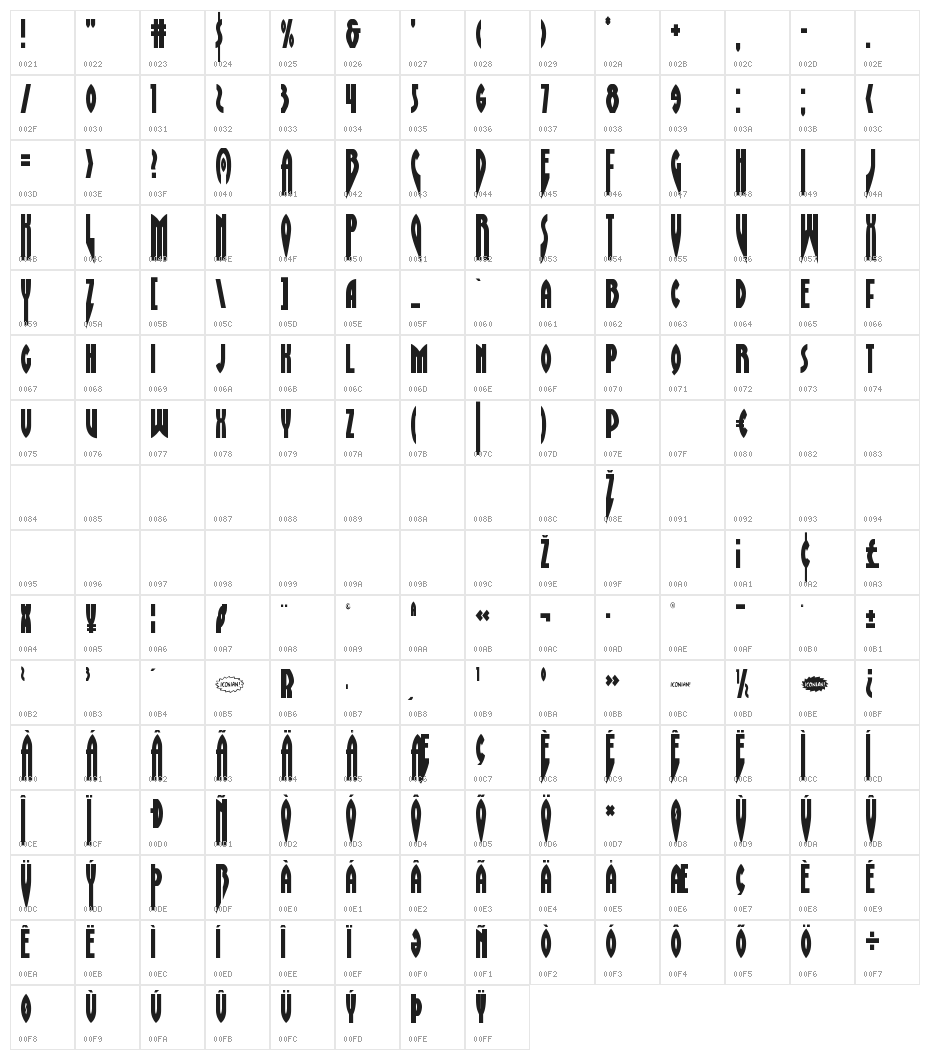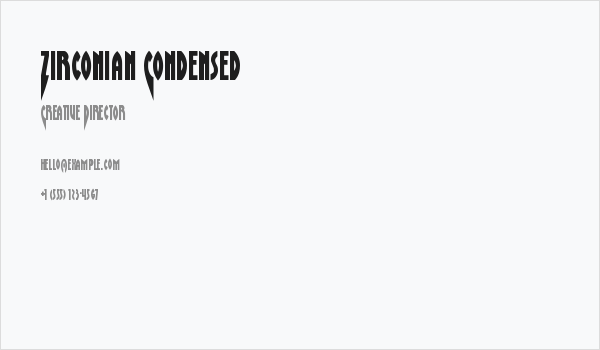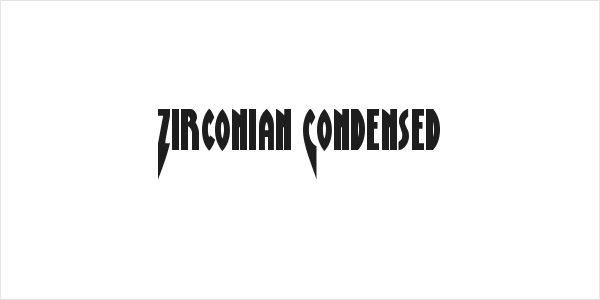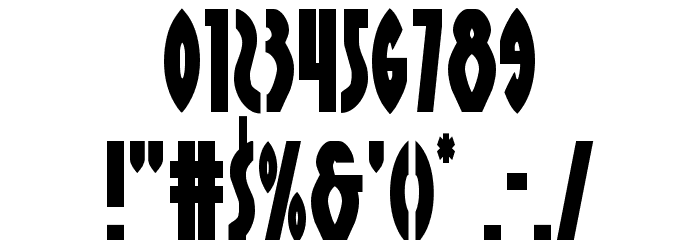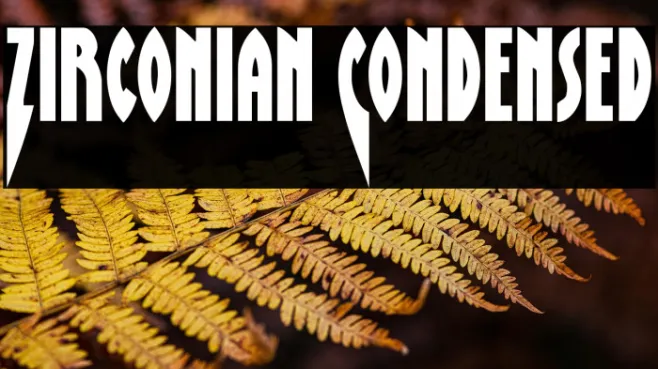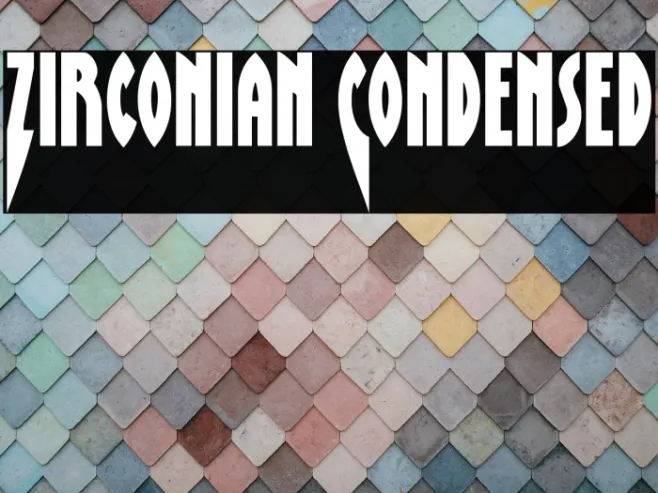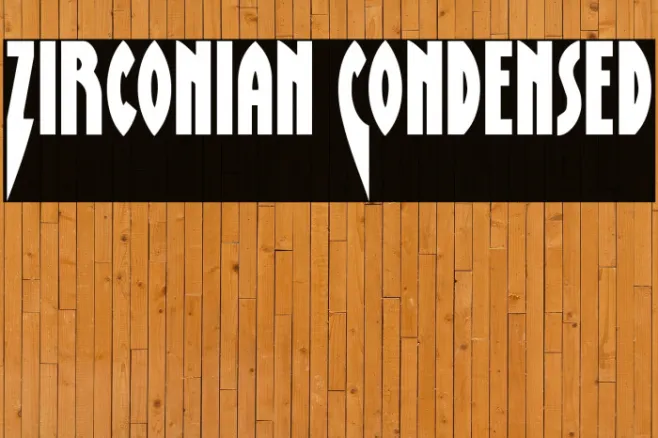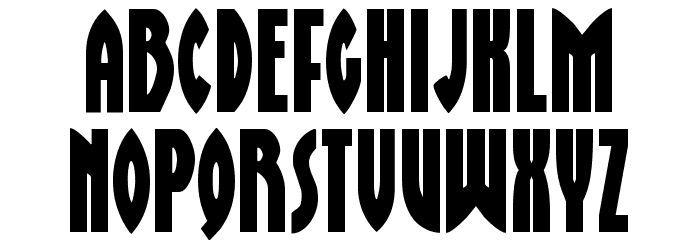
Zirconian Condensed Font
Zirconian Condensed Description
This font features a bold and condensed style with a strong geometric influence. The characters are tall and narrow, creating a striking and impactful appearance. The uppercase letters are particularly prominent, with sharp angles and clean lines that convey a sense of modernity and strength. The numbers and special characters maintain the same boldness, ensuring consistency across all elements. This typeface is designed to grab attention and make a statement, ideal for projects that require a powerful visual impact.
| Proposed Projects | Ideal for posters, headlines, branding, and any project needing a bold statement. |